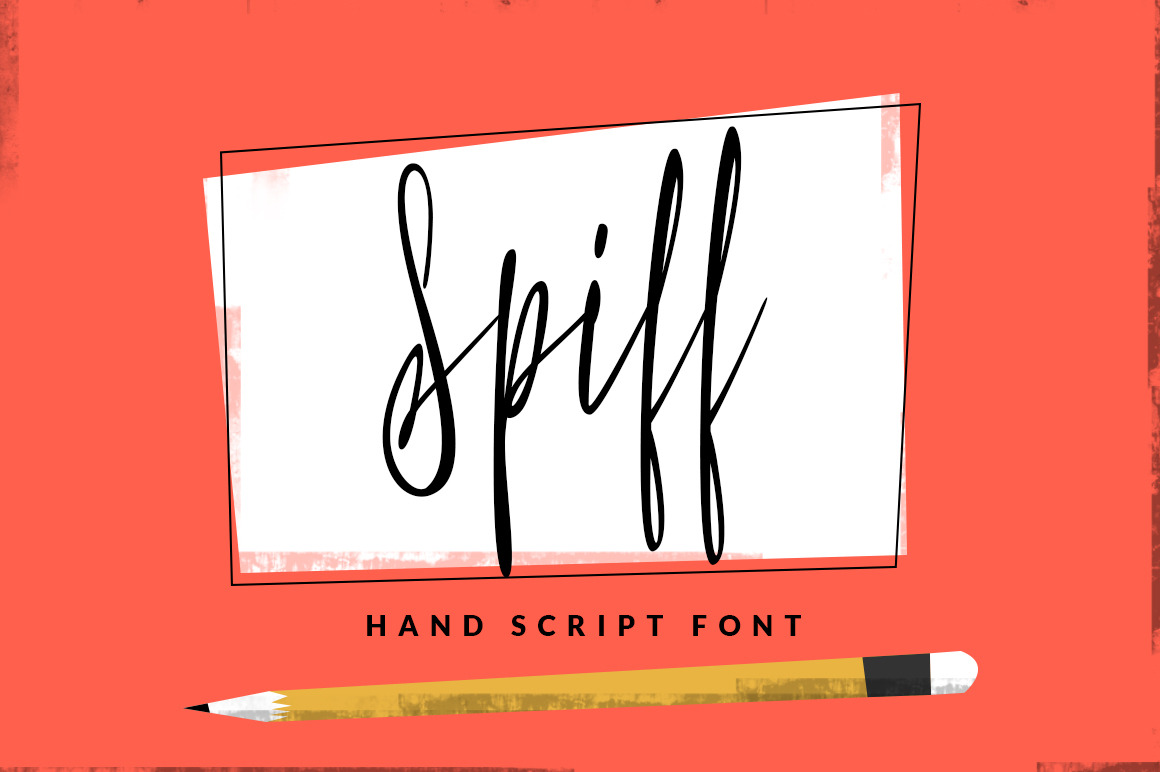
Spiff - Hand Script Font
Spiff is a thin and tall hand script font perfect for illustrations, logos, headings, stationary and other design projects.
The font is made by almost 400 glyphs, including uppercase, lowercase, uppercase alternates, lowercase alternates letters, numbers, symbols and punctuation.